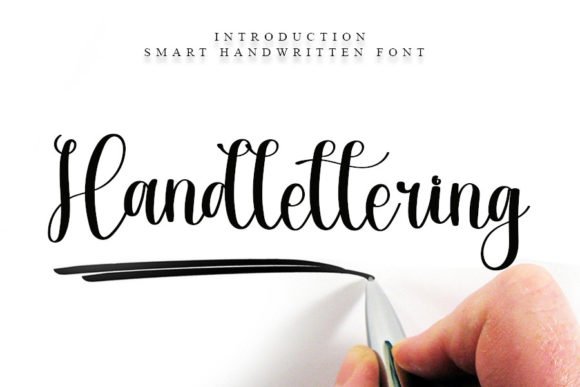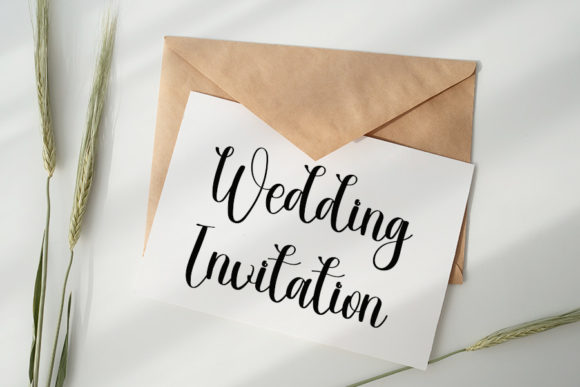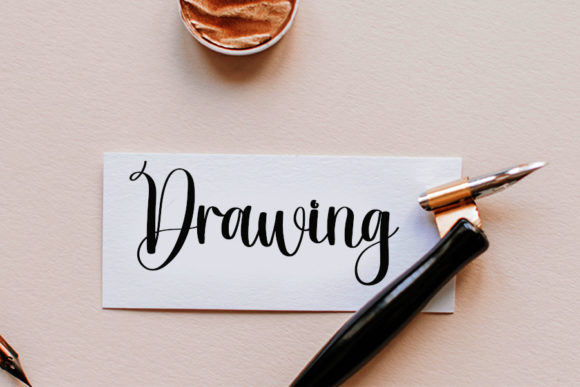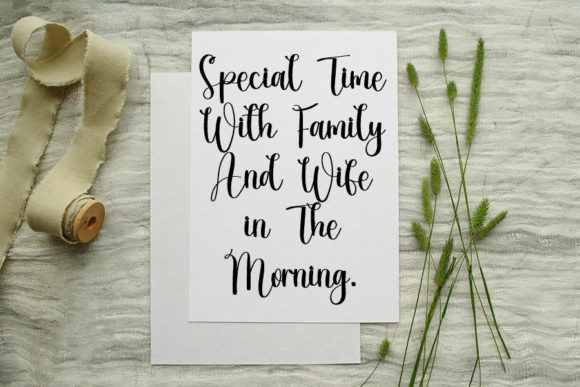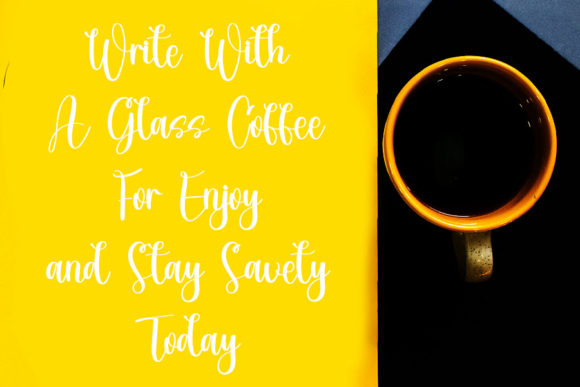
The Sweet Charm of Handlettering Font
As a designer, have you ever found yourself scribbling down ideas on a notepad, watching as the words flow effortlessly onto the page? It’s that moment, the one where creativity meets freedom, that sparks the imagination and sets the wheels in motion. And it’s precisely that feeling we aim to capture with the Handlettering Font – a delicate, handwritten font that adds a touch of romance and whimsy to any design.
This charming font is perfect for wedding invitations, cards, and any other project that requires a personal, loving touch. Whether you’re a seasoned designer or just starting out, Handlettering Font is an invaluable tool in your creative arsenal. Its unique, handwritten style brings a level of sophistication and elegance to any design, making it a valuable addition to any designer’s toolkit.
Key Features of Handlettering Font
- Unique Hand-Drawn Style: Each character in the font is carefully hand-drawn to create a unique, personalized look that adds a touch of elegance to any design.
- Large Character Set: Includes over 500 characters, including uppercase and lowercase letters, numbers, punctuation, and special characters, making it perfect for a wide range of design projects.
- Full Unicode Support: Compatible with a wide range of languages, including Latin, Cyrillic, and Greek alphabets.
- Easy to Customize: Features a range of OpenType features, including ligatures, swashes, and stylistic sets, allowing designers to easily customize the font to fit their specific needs.
Handlettering Font Review
I’ve had the chance to work with the Handlettering Font, and I must say it’s a beautiful addition to any design project. ✨ The font’s unique, handcrafted feel brings a touch of personality to any text-based element. It’s perfect for creating eye-catching headlines, quotes, or even entire paragraphs of text.
- Wide range of styles and variants, making it easy to match the font to your design’s tone and atmosphere.
- Each character is carefully crafted, resulting in a high level of detail and authenticity.
- Works well in both print and digital design projects.
However, there are some limitations to keep in mind ⚠️. The font’s uniqueness can also be a drawback, as it may not be suitable for projects where a more neutral or standard font is preferred. Additionally, some of the font’s more ornate styles may be challenging to read, especially in smaller sizes.
Overall, I’d give the Handlettering Font a solid 4 out of 5 stars. While it may not be the best choice for every project, it’s a great option when you need to add some personality and flair to your design. With a little creativity and experimentation, the Handlettering Font can be a valuable addition to any designer’s toolkit.
Getting the Most Out of Handlettering Font
To get the most out of your handlettering font, experiment with different font sizes, colors, and styles. Use the font in combination with other design elements, such as graphics and images, to create a unique and eye-catching design.
Handlettering fonts are commonly used in wedding invitations, branding, and marketing materials. They can also be used in digital products, such as ebooks and online courses, to add a personal touch.
Alternatives to Handlettering Font for Designers
Great Vibes is a beautiful, elegant script font that works well for invitations, posters, and other design elements that require a touch of sophistication. It’s perfect for creating a whimsical, vintage feel.
Comparison to Handlettering Font: Great Vibes is more refined and polished, while Handlettering Font has a more casual, handwritten feel. Use Great Vibes when you need a more formal, high-end look.
Carolyna Pro is a modern, stylish script font that’s ideal for logos, branding, and other design elements that require a bold, eye-catching look. It’s perfect for creating a sense of luxury and sophistication.